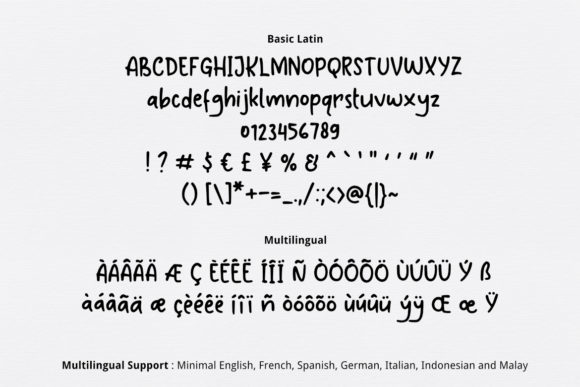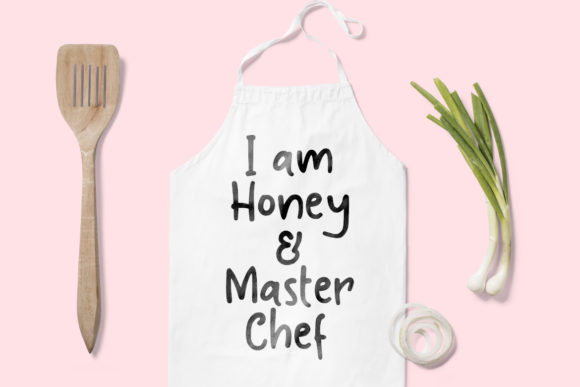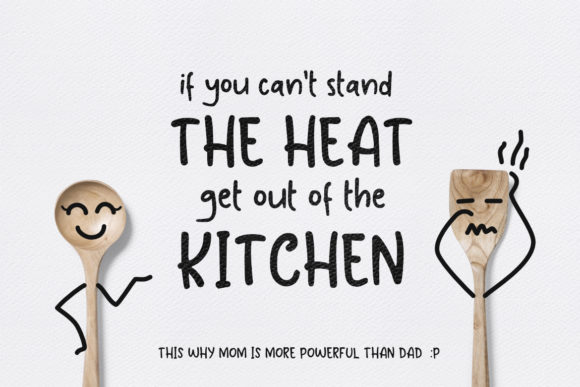
HomeScript FontsHoney Lemon Font Script Fonts Honey Lemon Font FacebookXPinterestWhatsApp Honey Lemon Font Poster 2 Honey Lemon Font Poster 3 Honey Lemon Font Poster 4 About Honey Lemon Font Honey Lemon is a playfully elegant script with a modern twist. Fall in love with its cute feel! DOWNLOAD NOW People also explored Romance Font Cat Nite Font Love Daddy Font Destone – 2 Styled Font Agathis Font Minimalist Font Christine Font Forestea Font History Font 321 0 TagsHoney Lemon Font Previous articleCanda Tawa FontNext articleJelly Cream Font LEAVE A REPLY Cancel reply Comment: Please enter your comment! Name:* Please enter your name here Email:* You have entered an incorrect email address! Please enter your email address here Website: Save my name, email, and website in this browser for the next time I comment. Personal Use Free Starter Personal Use Free Read more about this font Vinograd Personal Use Free Read more about this font Beattingvile Personal Use Free Read more about this font Happy Rabbit Personal Use Free Read more about this font BLOG Exploring Font Trends Shaping Communication in the Digital Era Fonts, like all design elements, are subject to trends. They play a crucial role in communicating a brand's personality,... Best Fonts for YouTube Videos: Make Your Thumbnails Stand Out To increase your work productivity, choose the most readable fonts. 5 Fonts That Will Dominate Design Trends in 2026